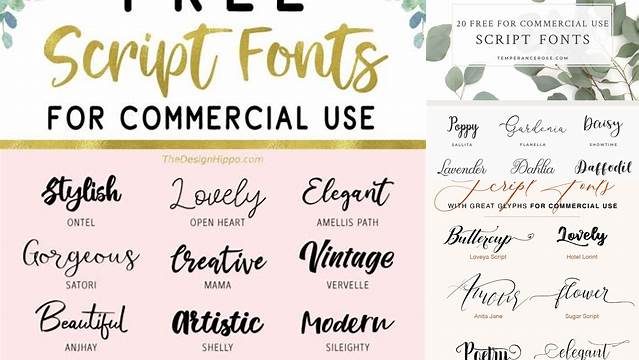
Best Free Script Fonts For Commercial Use
Finding the perfect script font for your project can be a game-changer, especially when you need it for commercial use. You want something that looks great and doesn't break the bank with licensing fees. In this comprehensive guide, we'll dive into the world of free commercial use script fonts, exploring various styles, where to find them, and how to use them effectively. Let's get started, guys!
What are Script Fonts?
Script fonts are designed to mimic the flowing strokes of handwriting, giving a personal and elegant touch to any design. They range from formal calligraphy to casual brush strokes, each with its own unique character. Understanding the nuances of these fonts can help you choose the right one for your project.
Types of Script Fonts
Script fonts come in a variety of styles, each suited for different purposes. Here are some common types:
- Formal Scripts: These fonts resemble traditional calligraphy and are perfect for wedding invitations, certificates, and high-end branding. Think elegant swirls and refined strokes.
- Casual Scripts: More relaxed and playful, these fonts are great for logos, social media graphics, and informal invitations. They often have a handwritten feel.
- Brush Scripts: Mimicking the look of brushstrokes, these fonts are bold and dynamic, ideal for posters, apparel designs, and eye-catching headlines.
- Retro Scripts: Inspired by vintage signage and advertising, these fonts add a nostalgic touch to your designs, perfect for retro-themed projects.
Key Characteristics of Script Fonts
Script fonts are characterized by their connected strokes, which give them a fluid and cohesive appearance. They often feature decorative flourishes, swashes, and varying stroke widths. The slant and rhythm of the letters contribute to the overall personality of the font. When choosing a script font, consider how these characteristics align with the message you want to convey.
Before you start using any free script font, it's crucial to understand the different types of font licenses. This will save you from potential legal issues down the road. Here’s a quick rundown:
Types of Font Licenses
- 100% Free: These fonts can be used for both personal and commercial projects without any restrictions. This is the ideal license to look for.
- Free for Personal Use: These fonts can only be used for non-commercial projects. If you want to use them for business purposes, you'll need to purchase a commercial license.
- Shareware/Donationware: These fonts are free to use, but the designer may ask for a donation if you like their work.
- Commercial License: These fonts require you to purchase a license to use them in commercial projects. The cost varies depending on the font and the usage.
Key Terms to Look For
When reviewing a font license, pay attention to the following terms:
- Commercial Use: Does the license allow you to use the font in projects that generate revenue?
- Number of Users: How many people can use the font within your organization?
- Embedding: Can you embed the font in documents or software?
- Modification: Are you allowed to modify the font?
- Attribution: Do you need to give credit to the font designer?
How to Use Script Fonts Effectively
Using script fonts effectively requires a bit of finesse. Overusing them can make your design look cluttered and hard to read. Here are some tips to help you get the most out of your free commercial use script fonts:
30. Yellowtail
Yellowtail is a vintage script that adds a retro and nostalgic touch to your designs, perfect for projects that need a classic and timeless feel.
Finding and using free commercial use script fonts can greatly enhance your design projects. By understanding the different types of script fonts, knowing where to find them, and being mindful of licensing terms, you can confidently incorporate these beautiful fonts into your work. So go ahead, explore these amazing resources and start creating stunning designs with free commercial use script fonts today!